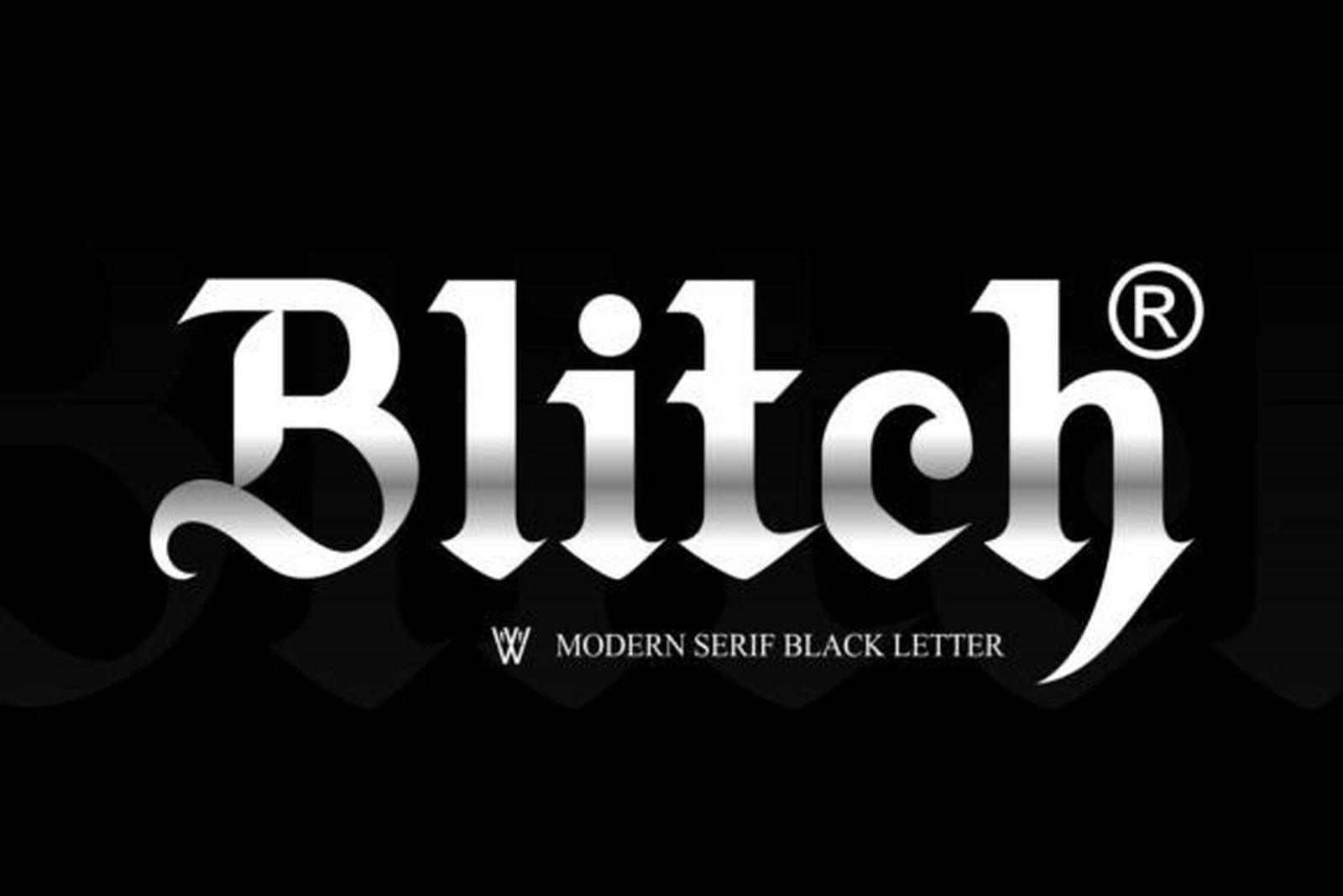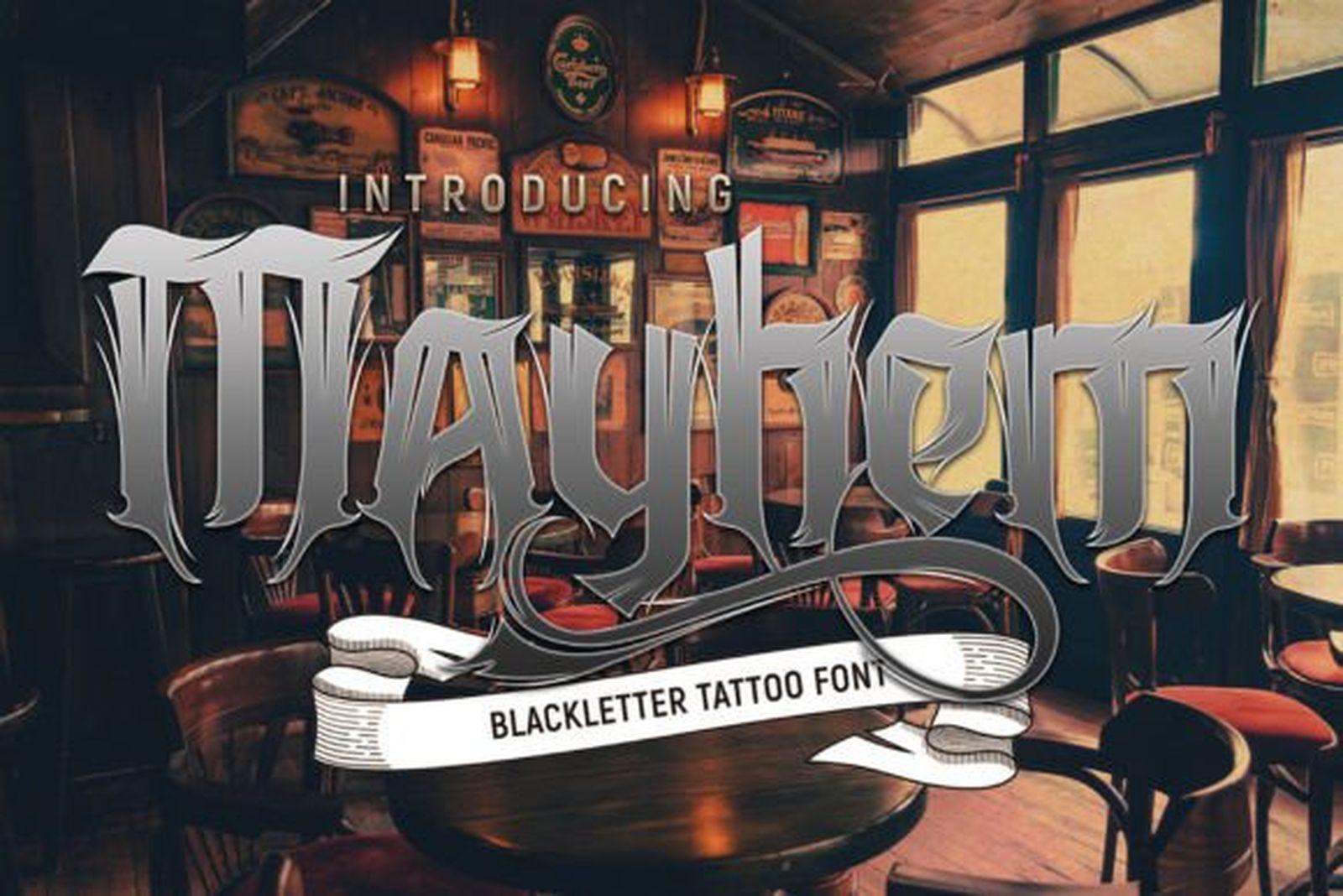
Tattoo Fonts for Men: 17 Bold Styles from Blackletter to Cursive for Name Tattoos
Men’s tattoo lettering usually asks for more weight than a delicate script can give: a surname that reads from across the room, a single word with some edge to it, a motto that sits next to a dagger or an eagle without disappearing. This list collects 17 fonts that carry that weight, grouped by style: heavy blackletter, Chicano and blackletter scripts, old school flash lettering, and bold display faces. Each pick comes with notes on where it works on the body and where it starts to struggle.
Heavy Blackletter & Old English Tattoo Fonts
Blackletter is the classic choice for men’s lettering: dense, angular and built from broken strokes. The three fonts below range from a stripped-back modern version to full Old English with scrollwork.
1. Blitch Font
by Whymore
Best For: one-word chest pieces, surnames, bold statements across the upper back
Blitch Font takes the Old English skeleton and removes most of the decoration. The strokes are heavy, the counters stay open, and the capitals get only a single restrained curl. The result reads as a word first and as ornament second, which is rare for blackletter.
Give it size and keep it to one or two words: a surname across the chest or a single word along the forearm. Because the shapes are already clean, you can set the letters fairly close together without losing legibility, and a simple script works well as a second line underneath.
Blitch Font preview, heavy modern blackletter tattoo font for men
2. Apicalyps Font
by Letter Stock
Best For: traditional Old English lettering on the chest, stomach or back
Apicalyps Font is the dense, spiky blackletter most people picture when they think of a classic men’s script piece. The capitals carry curled flourishes, and the preview wraps the word in extra scrollwork that you can use or leave out.
This one needs room. Across the stomach or the upper back, the flourishes have space to breathe; on a small wrist piece, the tight joins between strokes would close up as the ink settles. A good rule: let one decorated capital lead the word and keep the rest plain.
Apicalyps Font preview, Old English blackletter tattoo font for men with flourishes
3. Mayhem Font
by Letter Stock
Best For: narrow placements such as the forearm, the calf or down the spine
Mayhem Font is condensed and heavy, with tall straight stems that set up a strong vertical rhythm. Next to Apicalyps it feels tighter and more compact, closer to lettering on an old bar sign than to a manuscript page.
The narrow letters let a longer word run along the forearm without shrinking too much. Add a little extra space between letters, otherwise the stems can merge into one dark block after a few years.
Mayhem Font preview, condensed heavy blackletter tattoo font for men
Chicano & Blackletter Script Tattoo Fonts
Cursive tattoo fonts for men look different from fine-line scripts: the strokes are thicker, the capitals borrow from blackletter, and the swashes swing wide in the Chicano tradition. These four are the heaviest scripts we found for names and mottos.
4. Black Ink Font
by Letter Stock
Best For: large script names or short mottos on the back or chest
Black Ink Font mixes a flowing script with blackletter-style capitals, and those capitals throw long hairline swashes around the whole word. It is a showpiece font, meant for one dramatic line rather than a paragraph.
The thin swashes are the part to watch: they only survive at a generous size. Go big, keep the phrase short, and on a curved placement like the shoulder consider dropping one or two flourishes so the word keeps its shape.
Black Ink Font preview, blackletter script tattoo font for men with swash capitals
5. Mack Labor Font
by Letter Stock
Best For: Chicano-style name tattoos across the chest or collarbone
Start With the Placement, Then Pick the Style
Most lettering regrets come from a good font in the wrong spot. Decide where the words will live, narrow the list down to the group that fits that space, and then test your exact name or phrase in two or three candidates side by side. The one that still reads clearly at your planned size is the right choice.